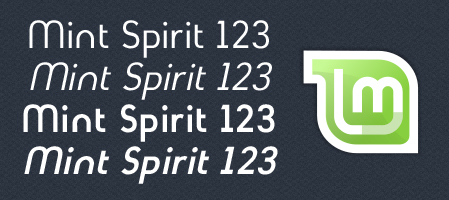
An alpha release of Mint Spirit – a new system font designed for Linux Mint Debian Edition – has been made�available�for download.
The font face has designed to give Linux Mint Debian Edition its ‘own identity’ and is said to draw inspiration from Futura, Gillius, NeoGothis and Ubuntu fonts.
The aim of the font, the developer says, is to create a ‘clear, fresh, nice and modern typeface usable for text and screen rendering, based on the LinuxMint logo.’
Alpha release
As an alpha release Mint Spirit is far from being a readily drop-in-replacement for more established fonts, although basic Unicode support is included in the alpha release.
The beta release will contain support for Turkish, Central and Eastern European languages, as well as ‘complete OpenType features’ and other glyph variations.
A web font version is also in the works.